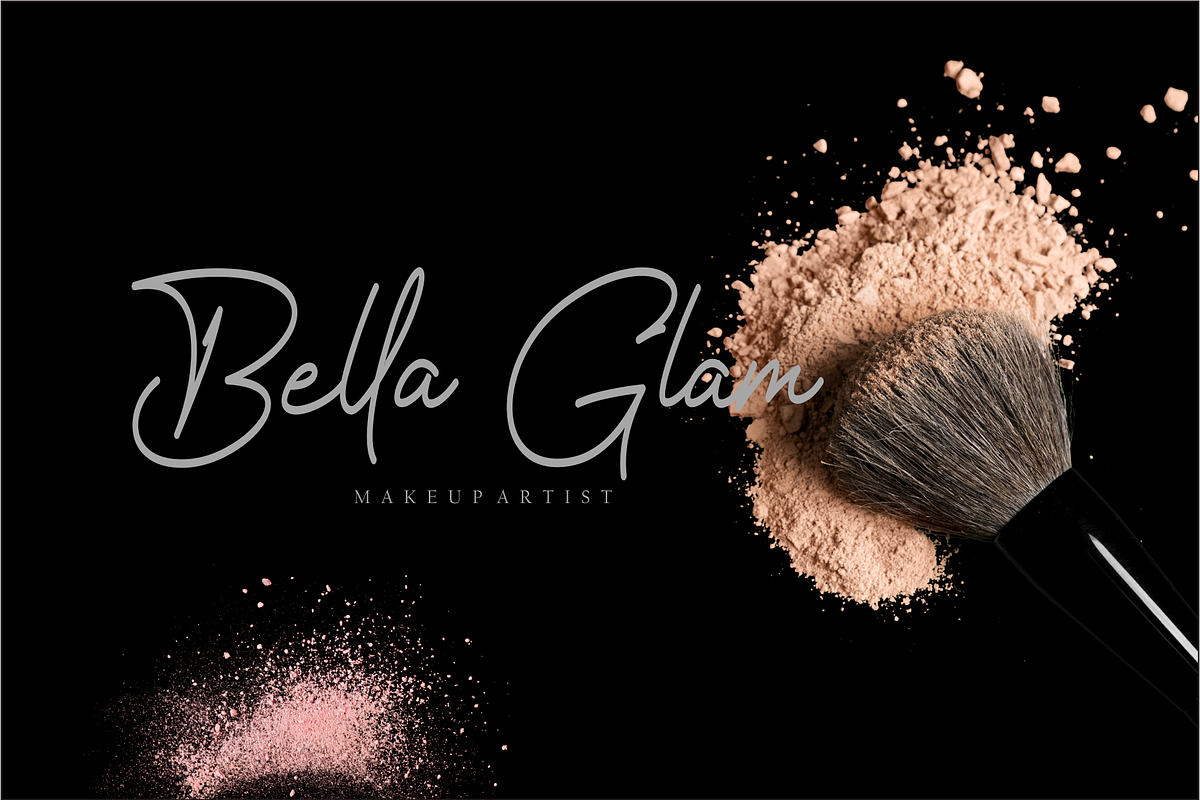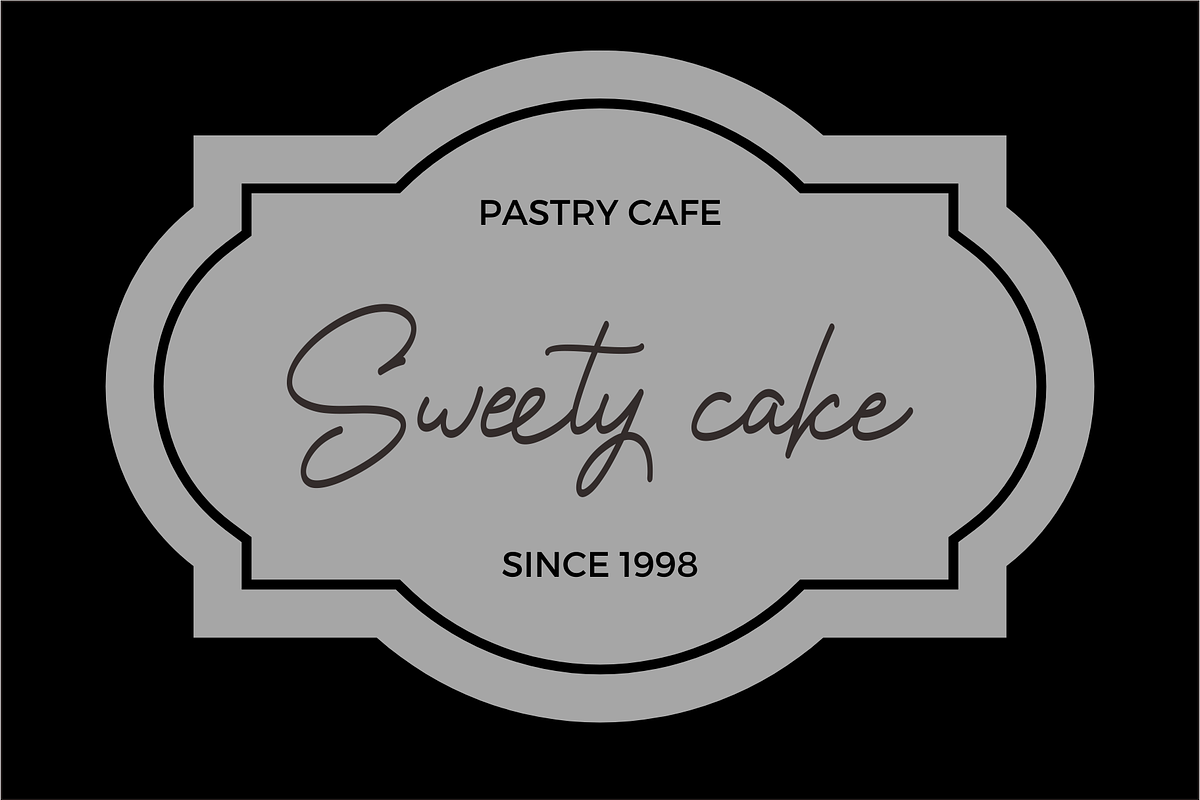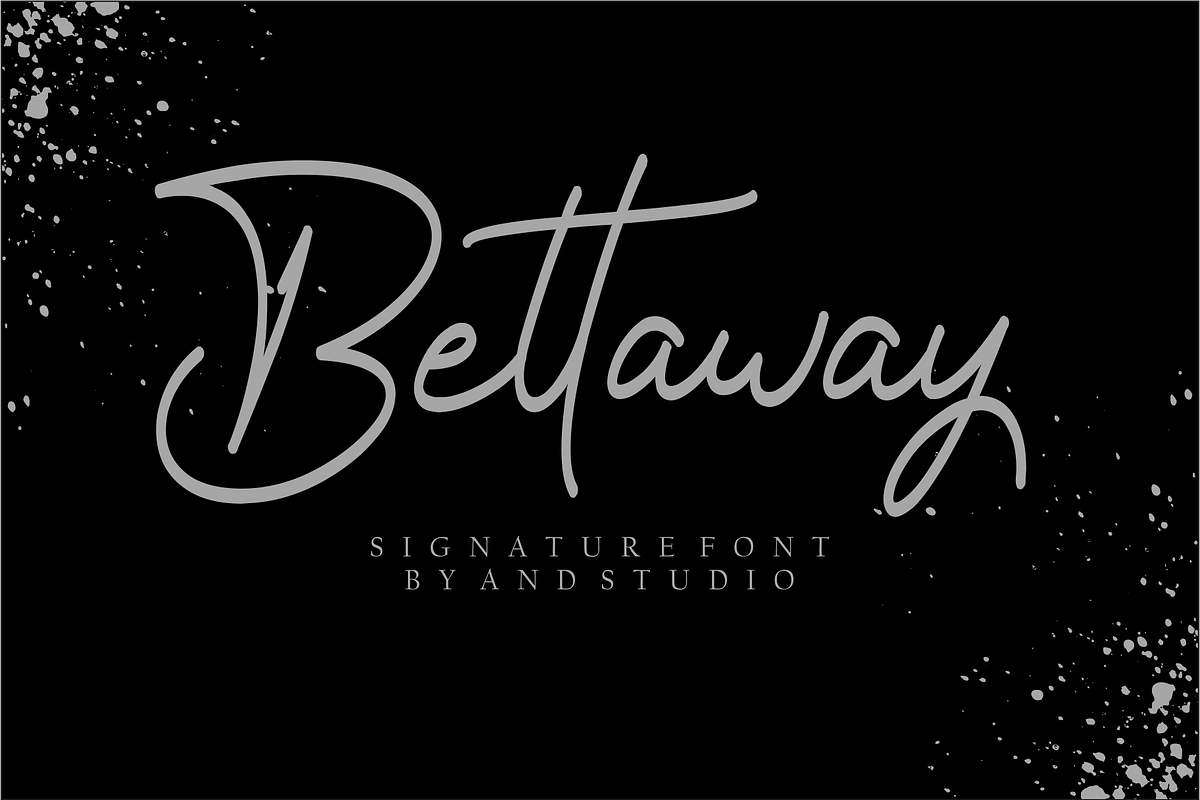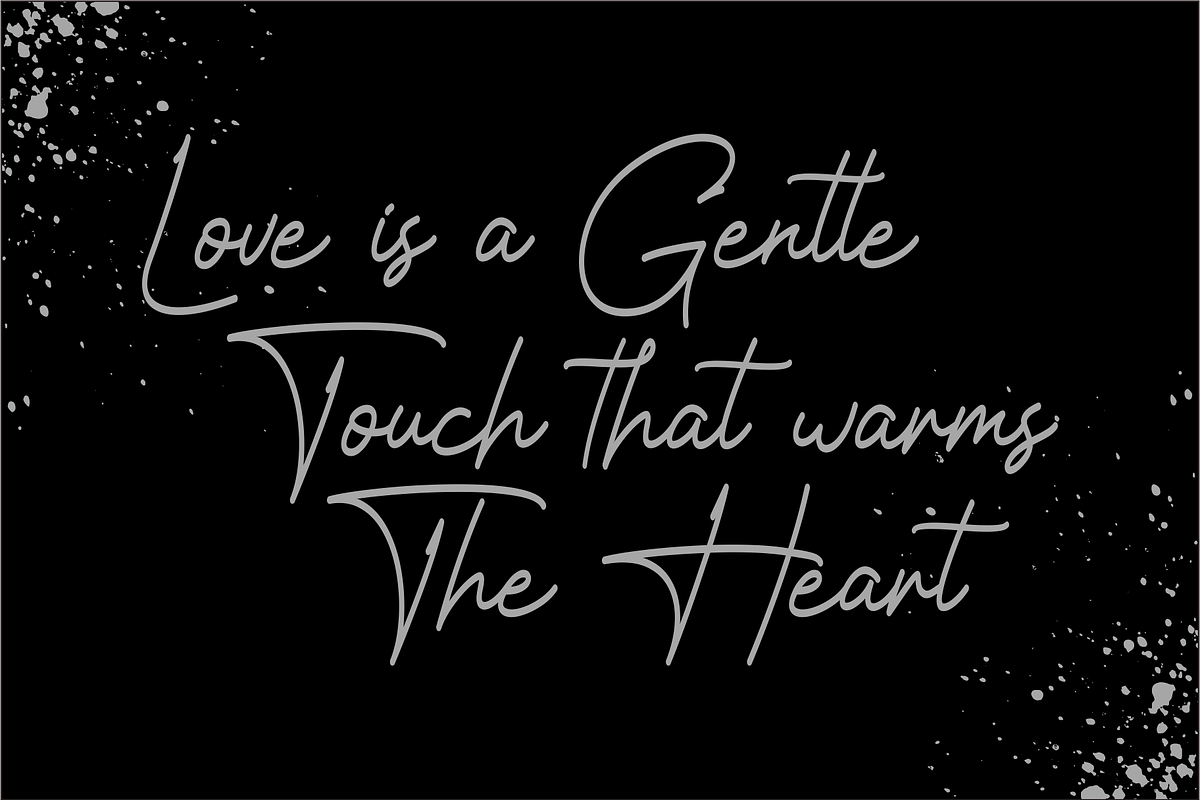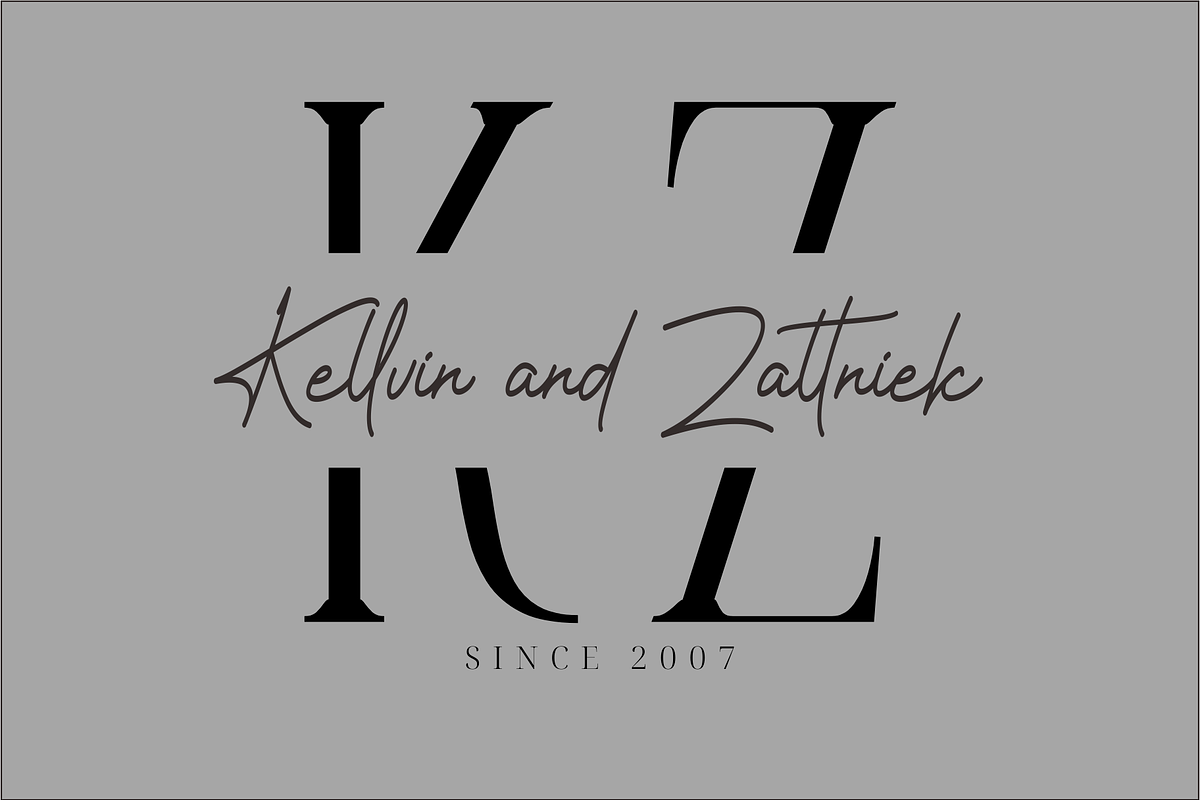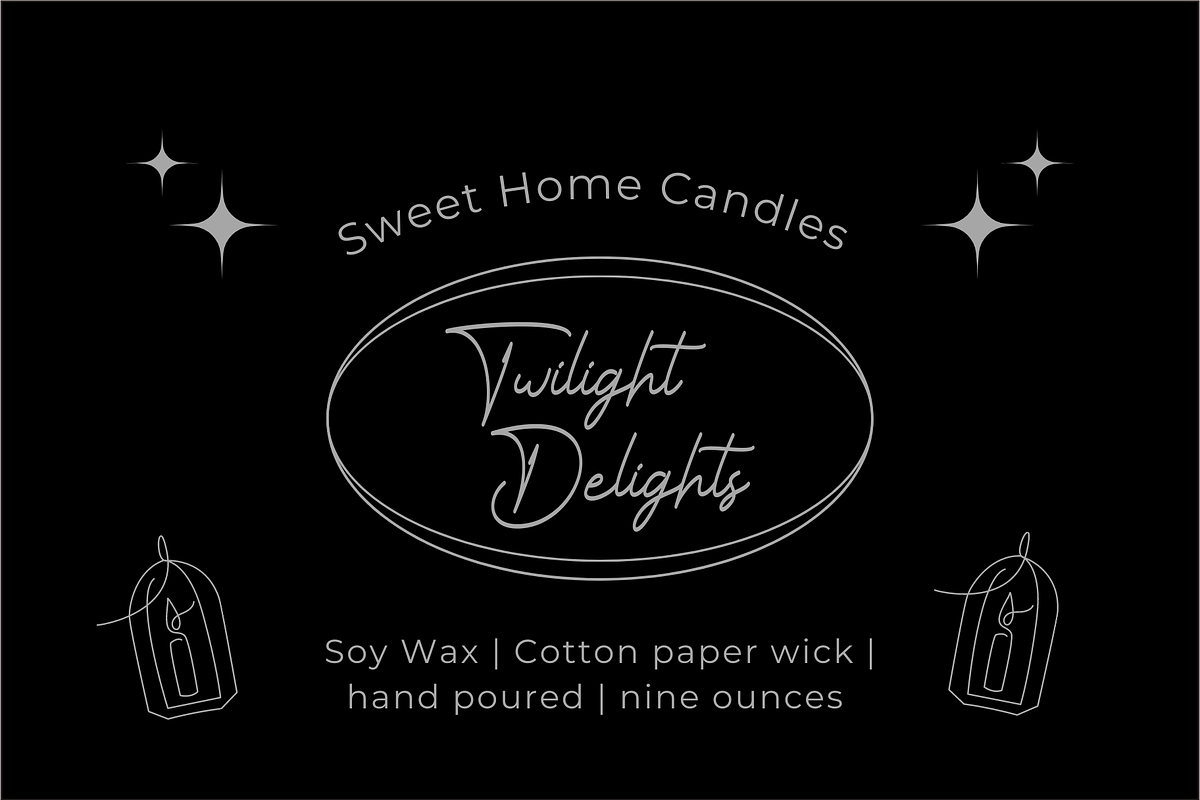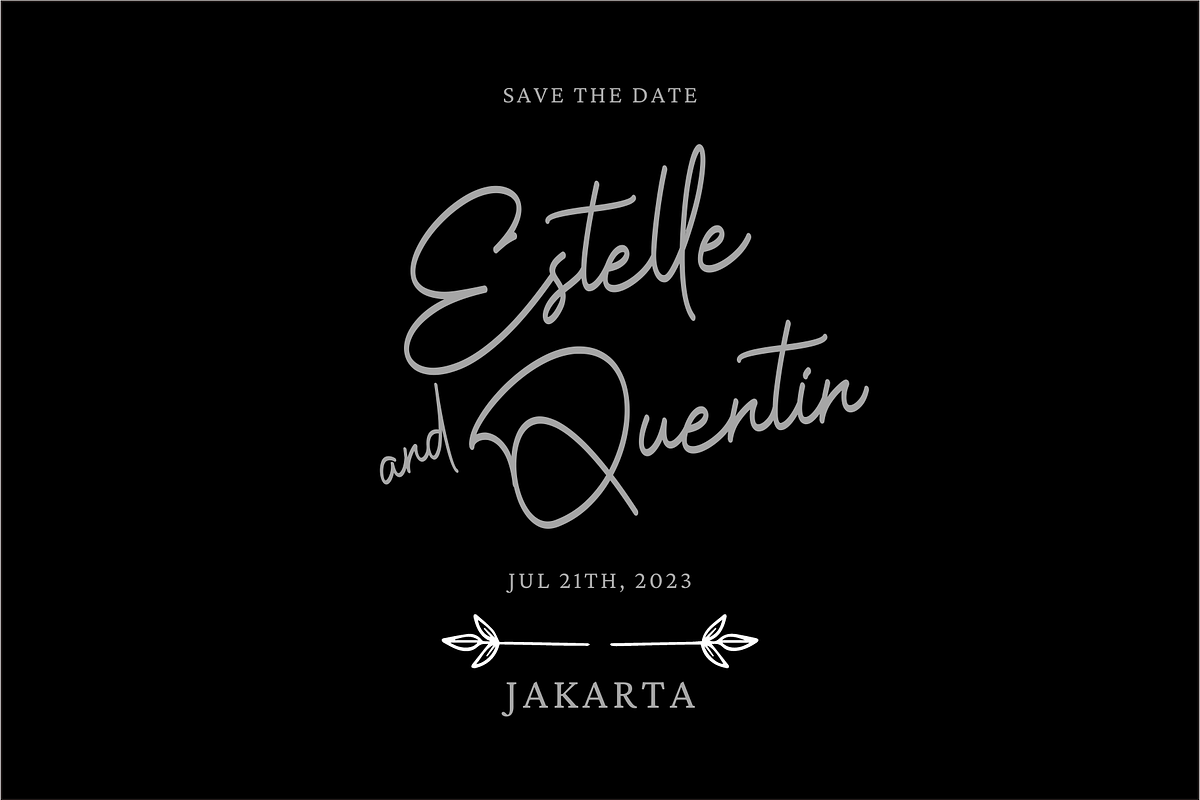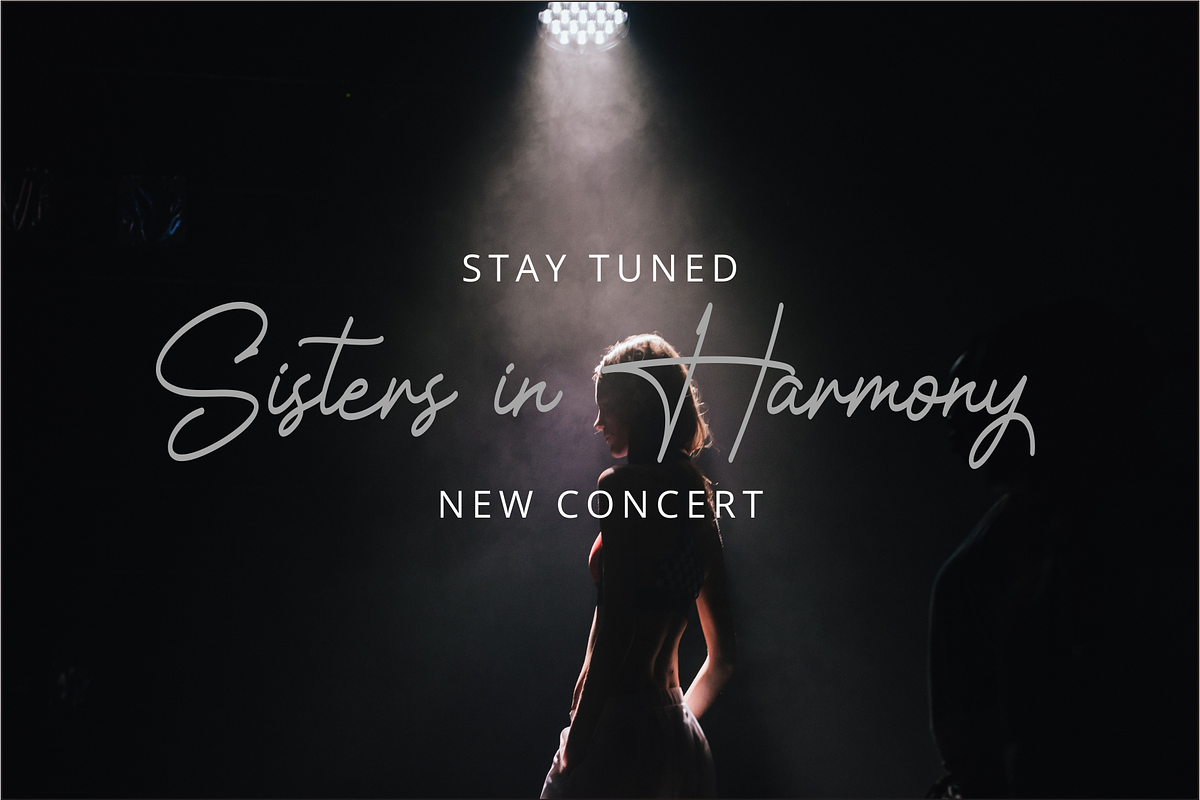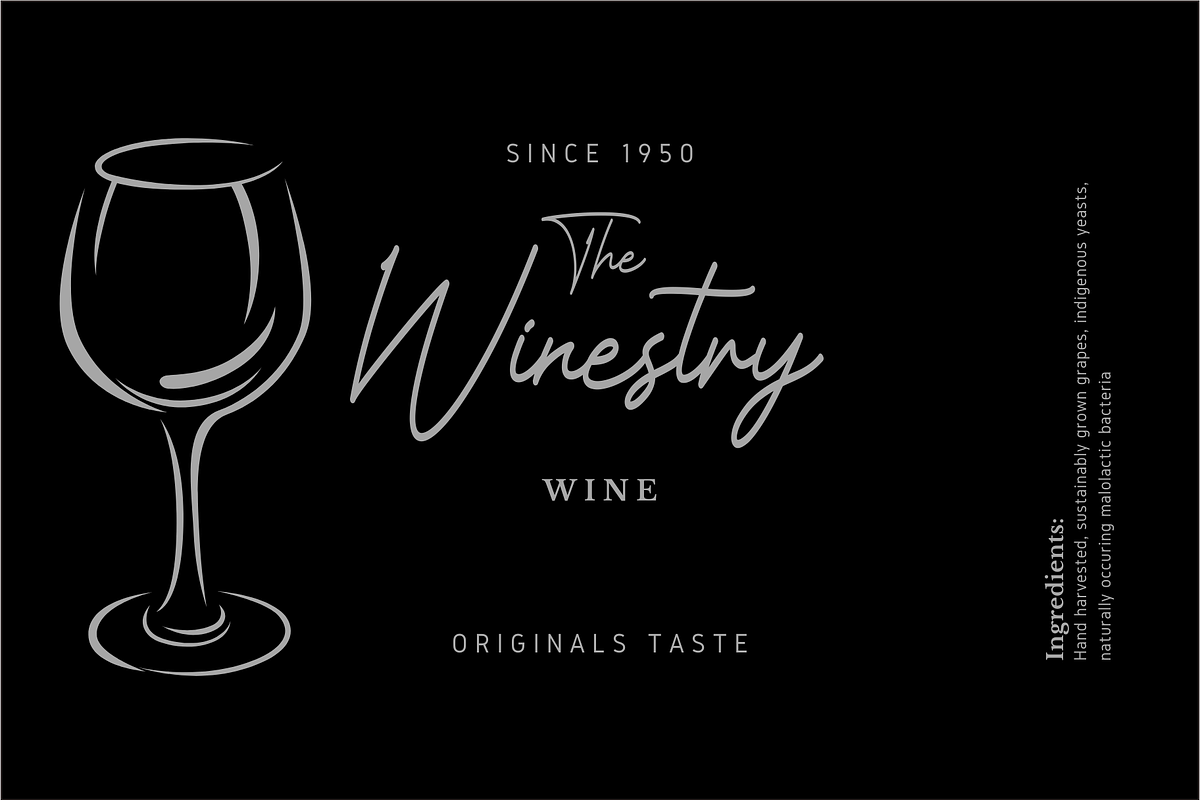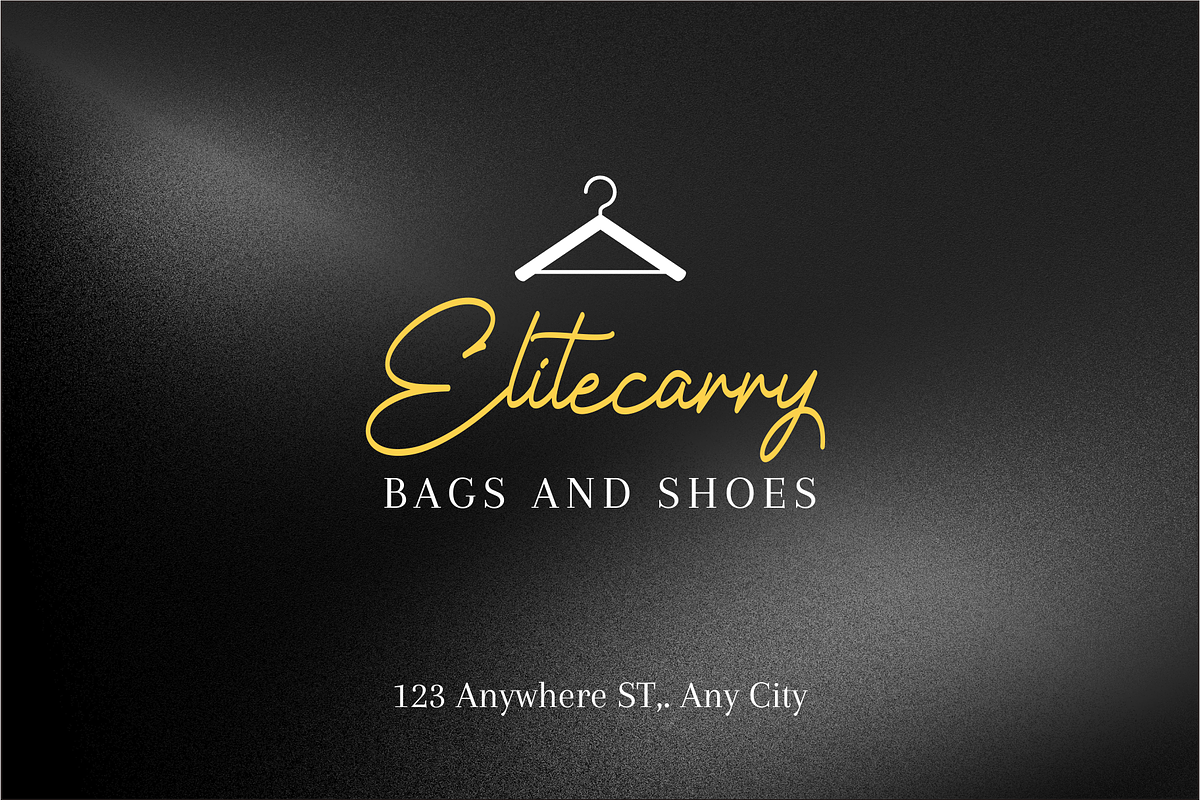
Bettaway
Bettaway is a signature font that exudes elegance, sophistication, and class. This font is perfect for any project that requires a touch of luxury, such as high-end fashion branding, luxury hotel marketing materials, or high-quality product packaging. The Bettaway font is designed to resemble a handwritten signature, with sweeping curves and thin strokes that create a sense of fluidity and movement.